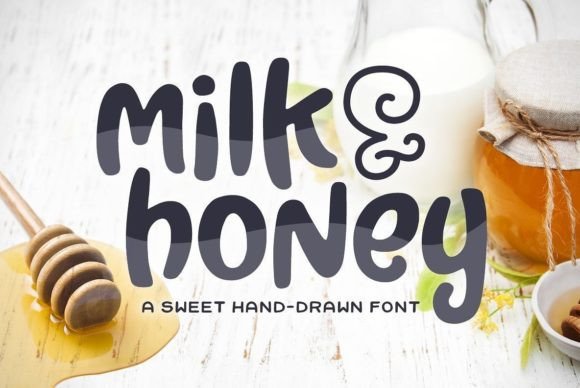
In a world of digital wonders, Milk & Honey Font emerges as a rare gem, a hand-crafted masterpiece that captures the essence of bold expression. Its sweeping curves and playful strokes dance across the screen, captivating the eyes and igniting the imagination. Let your designs bask in the glory of Milk & Honey's enchanting presence.
Embrace the allure of Milk & Honey, a script font family that radiates charm and personality. Its bold letters command attention, demanding to be seen and heard. Whether you're crafting headlines that sizzle or creating typographic posters that inspire, Milk & Honey is your trusted companion, transforming ordinary words into visual masterpieces.
Step into a realm of creative possibilities with Milk & Honey. Its versatility knows no bounds, adapting seamlessly to a myriad of projects. Watch as your designs flourish with Milk & Honey's enchanting touch, from eye-catching t-shirt designs that make a statement to social media graphics that captivate audiences.
With Milk & Honey by your side, you'll discover a new level of self-expression. Its bold and curvy style invites you to experiment, to push the boundaries of creativity and leave your unique mark on the world. Let Milk & Honey be your muse, guiding you towards designs that resonate with your soul and leave an unforgettable impression on all who behold them.
So, why settle for ordinary when you can bask in the extraordinary? Embrace the magic of Milk & Honey today and unlock a world of creative possibilities. Let your designs sing with boldness, charm, and a touch of irresistible sweetness. Experience the Milk & Honey difference and see your creations soar to new heights.